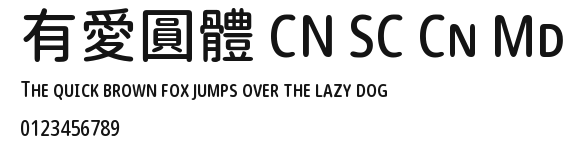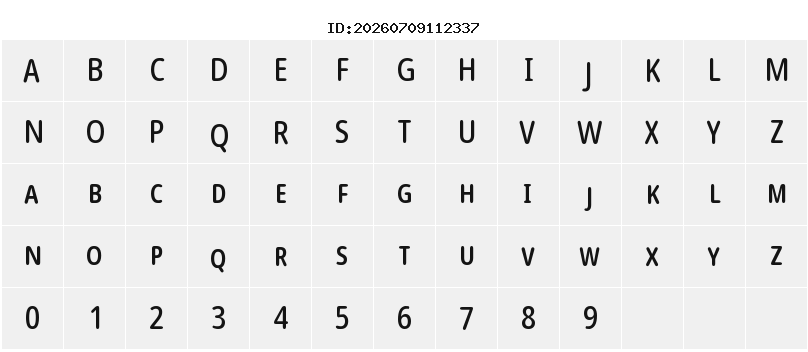
有愛圓體 CN SC Cn Md Preview
• Font Name: 有愛圓體 CN SC Cn Md
• Font ID: NOWR: Nowar Rounded CN Smallcaps Condensed Medium 0.3.0
• Full Font Name: 有愛圓體 CN Smallcaps Condensed Medium
• Designer: Cyano Hao (round all glyphs, character set definition & modification for World of Warcraft); Monotype Design Team (Latin, Greek & Cyrillic); Ryoko NISHIZUKA 西塚涼子 (kana, bopomofo & ideographs); Sandoll Communications 산돌커뮤니케이션, Soo-young JANG 장수영 & Joo-yeon KANG 강주연 (hangul elements, letters & syllables); Dr. Ken Lunde (project architect, glyph set definition & overall production); Masataka HATTORI 服部正貴 (production & ideograph elements)
• Manufacturer: Nowar Typeface
About 有愛圓體 CN SC Cn Md.ttf
有愛圓體 CN SC Cn Md.ttf is a modern, elegant sans-serif font designed for ultimate readability and visual harmony. Perfect for branding, headlines, web design, and print materials.